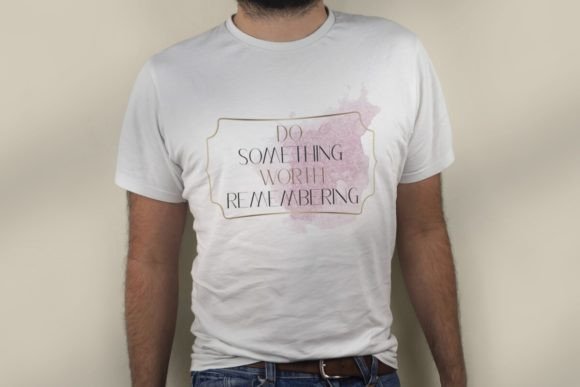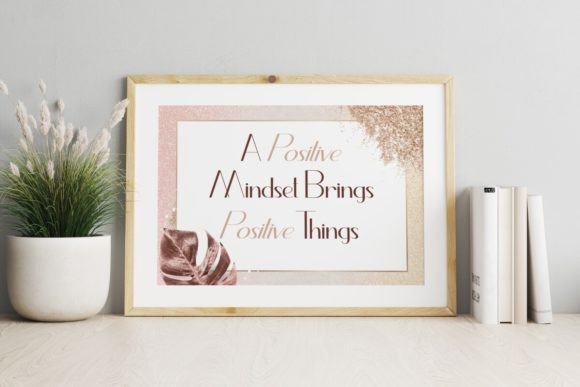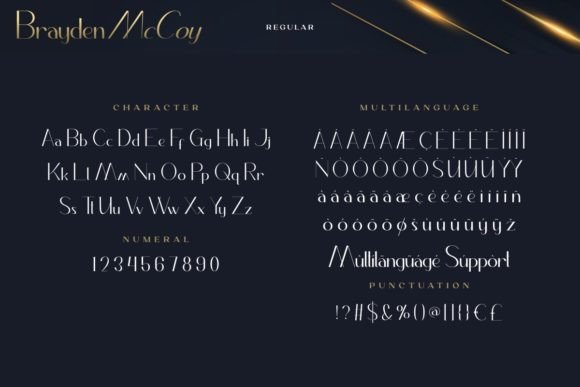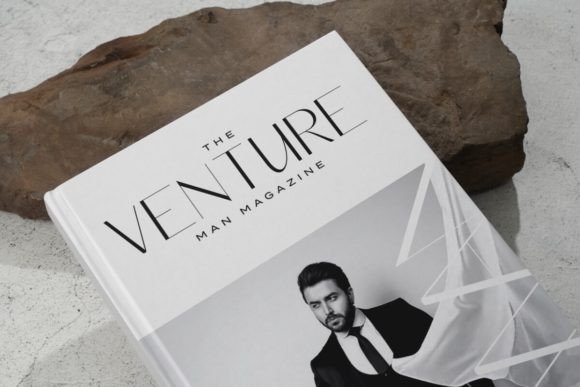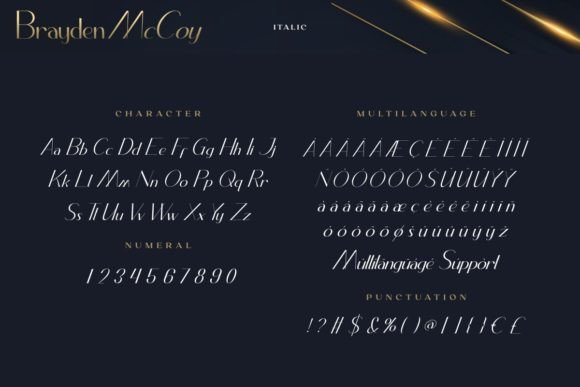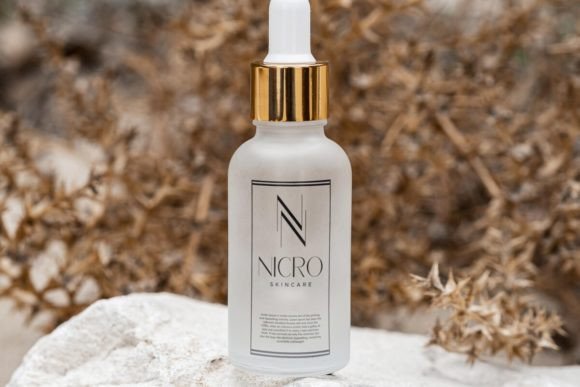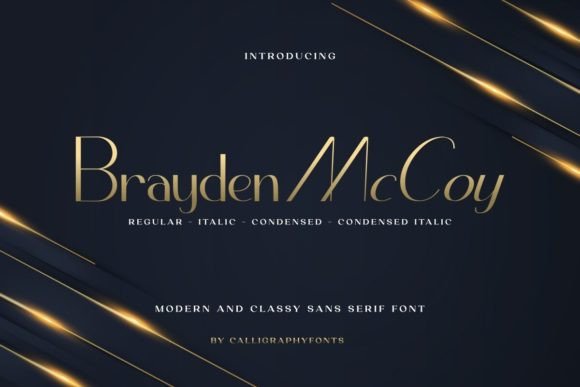
I’ll never forget the time I was working on a project for a high-end jewelry brand. My client wanted a font that exuded elegance and sophistication, but I was struggling to find the perfect one. I scoured the internet, tried out countless fonts, but nothing seemed quite right. That was until I stumbled upon the Brayden McCoy Font. ✨
As a designer, I’ve learned that the right font can make all the difference in a project. It can elevate your design, convey the right tone, and even make or break the overall aesthetic. So, when I discovered Brayden McCoy Font, I knew I had to share it with my fellow designers and creative hobbyists.
Brayden McCoy Font: A Modern Sans Serif Elegance
Brayden McCoy Font is a modern sans serif font created by CalligraphyFonts, exclusively designed to bring a touch of class to any project. It comes in four stylish styles: Regular, Italic, Condensed, and Condensed Italic. This font is versatile and can be used in various industries such as accessories, beauty clinics, clothing brands, handicrafts, jewelry, publishing, real estate, restaurants, and more.
The font’s clean lines, balanced proportions, and elegant curves make it perfect for designs that require a sophisticated look. Whether you’re working on a logo, brochure, or website, Brayden McCoy Font is sure to impress. ✅
- ✨ Elegant and sophisticated design
- ✅ Versatile and can be used in various industries
- 🌈 Perfect for designs that require a modern and clean look
- 💻 Works well in both digital and print formats
While Brayden McCoy Font is an excellent choice, there are a few things to keep in mind: 🤔
- ⚠️ Limited availability of extended language support
- ⚠️ Some users may find the font too similar to other sans serif fonts
- Experiment with the font’s OpenType features, such as ligatures and stylistic alternates, to add more personality to your design.
- Take advantage of the font’s glyphs and OpenType features to add more depth to your design.
The Designer Inspiration Behind Brayden McCoy Font
The story behind Brayden McCoy Font is one of passion and dedication. CalligraphyFonts, the creator of the font, aimed to design a font that would bring a touch of elegance to any project. The font’s designer drew inspiration from classic typography and modern design trends to create a truly unique font. 📚
According to the designer, Brayden McCoy Font was created to fill a gap in the market for a modern sans serif font that exudes elegance and sophistication. The font’s clean lines, balanced proportions, and elegant curves make it perfect for designs that require a sophisticated look.
A: The best way to use Brayden McCoy Font is to experiment with its various styles and OpenType features to find the perfect fit for your design.
A: Yes, Brayden McCoy Font works well in both digital and print formats, making it a versatile choice for designers.
A: While Brayden McCoy Font supports multiple languages, its extended language support is limited. Please check the font’s specifications to ensure it supports the language you need.